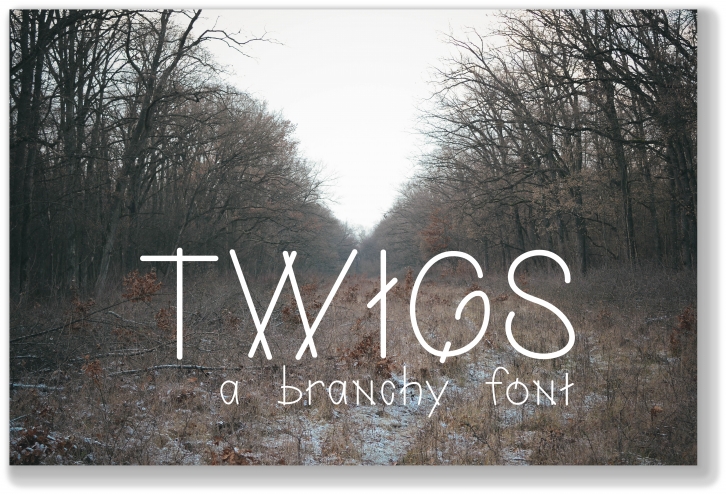
Twigs A Branchy is a gorgeous font that was realeased on April 10, 2018. The font can be used in many style contexts and design environments. Perfect for invitations, magazines, websites, logos, and more! It was designed by Cheese Toast Digitals and the file size is 18.30 MB. Thanks for checking out this font!